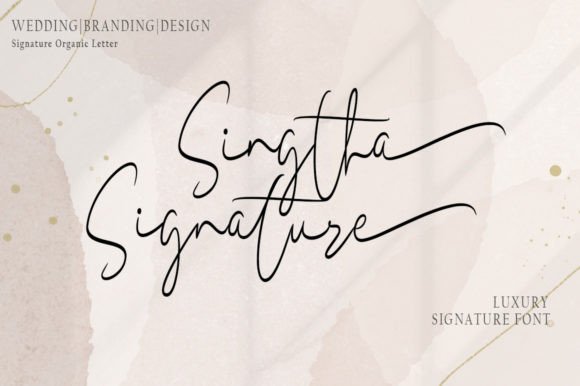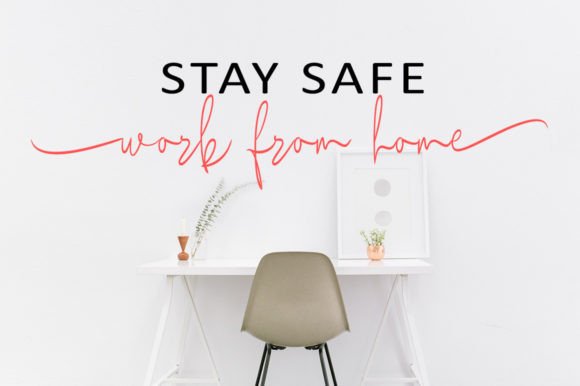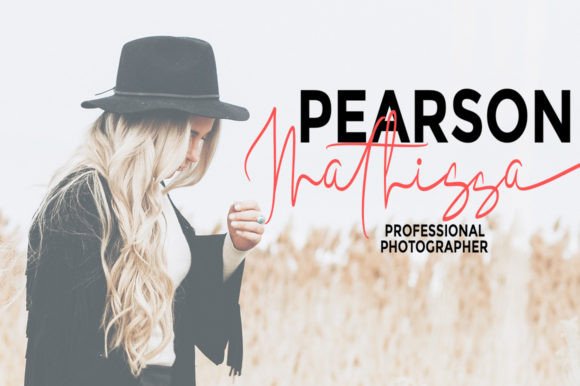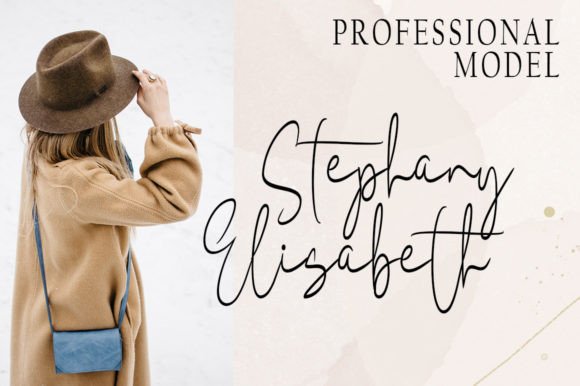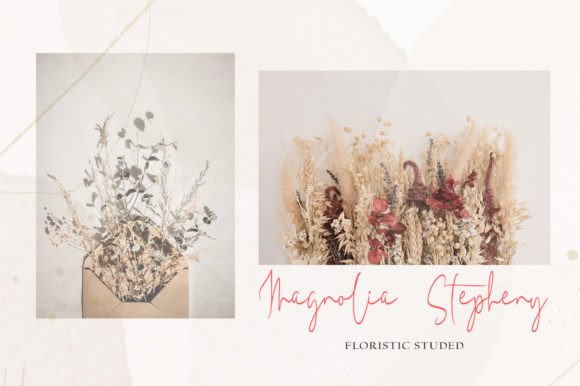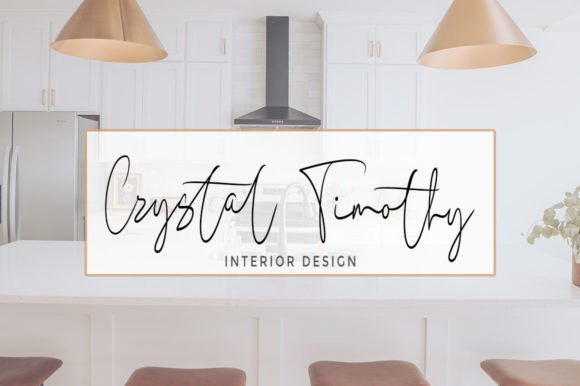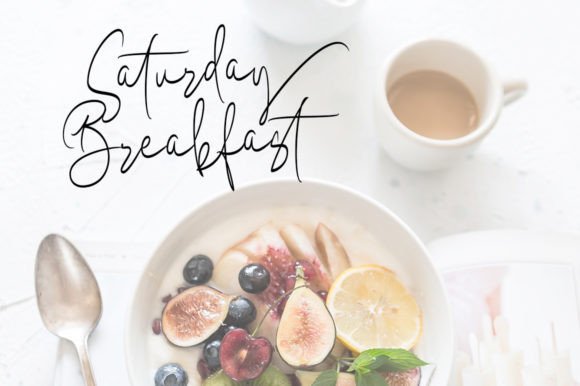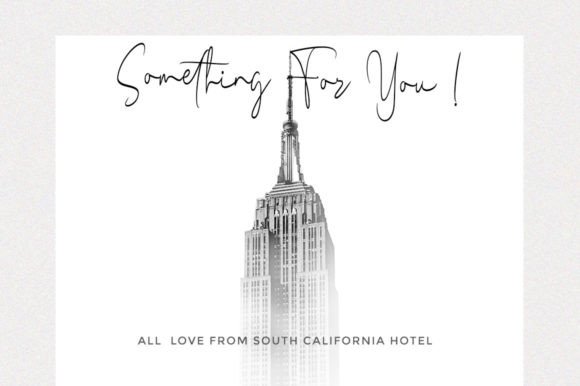
Sigtha Signature Font
About Sigtha Signature Font
“Sigtha Signature” is a lovely and delicate script font that radiates elegance and sophistication. This font was meticulously crafted to provide a beautiful and refreshing look to your designs. It is a perfect choice for those seeking to infuse their projects with a touch of class and timeless beauty. Additionally, “Sigtha Signature” is PUA encoded, granting you easy access to all its glyphs and swashes, enhancing its usability and flexibility.
The font’s delicate and elegant design is characterized by its flowing and graceful strokes. It is ideal for a wide range of design applications, including branding, wedding invitations, logos, fashion, quotes, watermarks, and more. “Sigtha Signature” can elevate your designs, making them exude a sense of sophistication and timeless appeal.
In the world of design, fonts play a pivotal role in conveying style, mood, and visual identity. “Sigtha Signature” excels in these aspects by offering a script style that is both delicate and timeless. Its aesthetics infuse your designs with a sense of refinement and elegance, making them captivating and memorable.
In summary, “Sigtha Signature” is more than just a font; it’s a lovely and delicate design tool that can bring elegance and class to your creative projects. Its PUA encoding ensures easy access to a wide range of glyphs and swashes, making it a versatile choice for designers seeking to create work that is both timeless and visually stunning. Whether you’re an experienced designer or just starting your creative journey, “Sigtha Signature” is the font that can help you craft designs that are truly exquisite and artistically compelling.